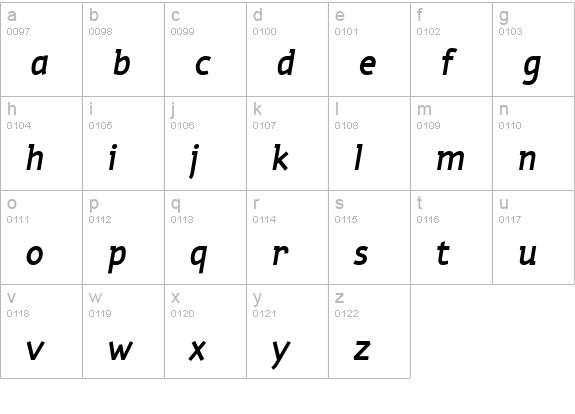
Torus Demi Italic Font Details
Torus Demi Italic is a sub-bold, structured, italic variant in the Torus typeface family \xE2\x80\x94 well suited to sub-headlines and emphasised passages.
Introducing Torus Demi Italic, a mesmerizing and modern typeface that effortlessly combines elegance with a touch of playfulness. This unique font is the perfect choice for designers seeking to add a touch of sophistication to their projects while maintaining a sense of creativity. Torus Demi Italic boasts a subtle slant and sleek curves that gracefully flow from one letter to another, creating a sense of fluidity and movement. Its demi weight strikes the perfect balance between boldness and delicacy, making it suitable for a wide range of design applications. This font's versatility knows no bounds, as it effortlessly adapts to various design styles, whether it be for branding, editorial layouts, packaging, or web design. Its distinct personality shines through, adding a touch of character and uniqueness to any project. One of the most remarkable aspects of Torus Demi Italic is its accessibility. This font is freely available to download at FontsMarket.com, making it a valuable asset for both professional designers and enthusiasts alike. Its availability ensures that anyone can add a touch of sophistication to their designs without breaking the bank. With Torus Demi Italic, the possibilities are endless. Whether you're looking to create eye-catching headlines, elegant logos, or stunning typographic compositions, this font will undoubtedly elevate your designs to new heights. Its timeless appeal and modern aesthetic make it a must-have in any designer's toolkit. Download Torus Demi Italic for free at FontsMarket.com and unleash your creativity with this captivating and versatile typeface. Experience the beauty of a font that seamlessly blends elegance and playfulness, and watch as your designs come to life with a touch of sophistication.